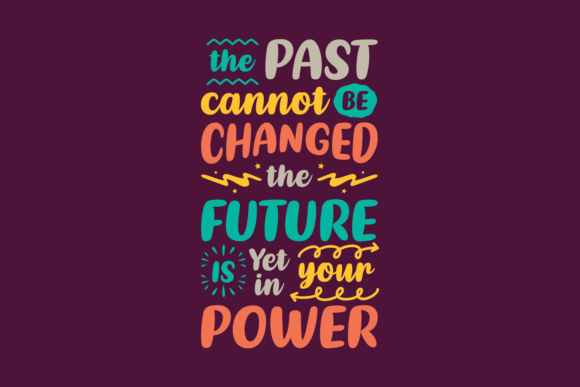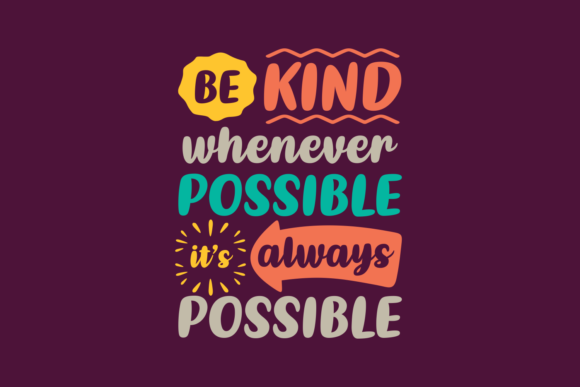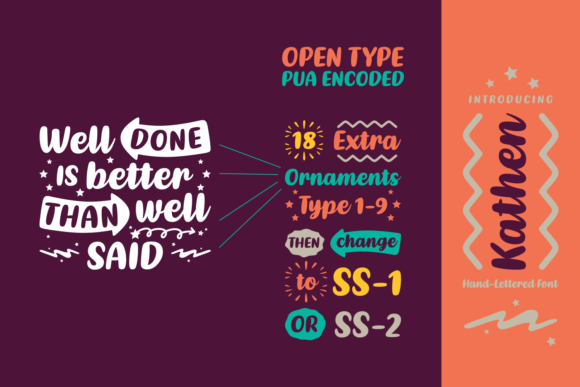
Introduction to Kathen Font
Have you ever stared at a blank page, trying to capture the perfect phrase for your creative project, only to find that the right words just aren’t coming? I’ve been there too, and that’s exactly why I fell in love with the Kathen Font – a beautiful, handwritten font that brings a touch of love and personality to any design.
As a valuable resource for designers, the Kathen Font is perfect for achieving a hand-lettered look in your projects, and its high quality makes it a go-to choice for poppy designs. With its free download option, you can easily add a touch of whimsy to your designs without breaking the bank. Plus, its transparent background makes it easy to layer and manipulate in your favorite design software.
Key Features of Kathen Font
- Unique, elegant design for various creative projects
- Comes in a single weight, perfect for adding a touch of sophistication to your designs
Honest Review: Kathen Font
As a designer, I’m always on the lookout for high-quality design resources that can elevate my creative projects. I recently came across the Kathen Font, and I’m excited to share my honest review with you.
- ✨ High-quality font design that’s perfect for modern and minimalist projects
- ✨ Beautifully crafted glyphs with a lot of attention to detail
- ⚠️ Limited character set, which may not be ideal for projects requiring a wide range of characters
- ⚠️ Not suitable for projects requiring bold or condensed font styles
Overall, I’m impressed with the Kathen Font’s clean and sophisticated design. While it may have some limitations, it’s an excellent choice for designers working on modern and minimalist projects. I’d definitely recommend it as a valuable addition to any design resource library.
How to Use Kathen Font
The Kathen Font is a versatile design resource perfect for creative projects that require a touch of elegance. This high-quality font features a transparent background, making it easy to incorporate into various design platforms.
Tips for Getting the Most Out of Kathen Font
To get the most out of Kathen Font, try combining it with other design elements, such as images and shapes, to create visually appealing designs. You can also experiment with different font sizes and colors to add depth and interest to your project.
The Kathen Font is perfect for a variety of creative projects, including invitations, posters, and business cards. Its elegant design and transparent background make it an ideal choice for any project that requires a touch of sophistication.